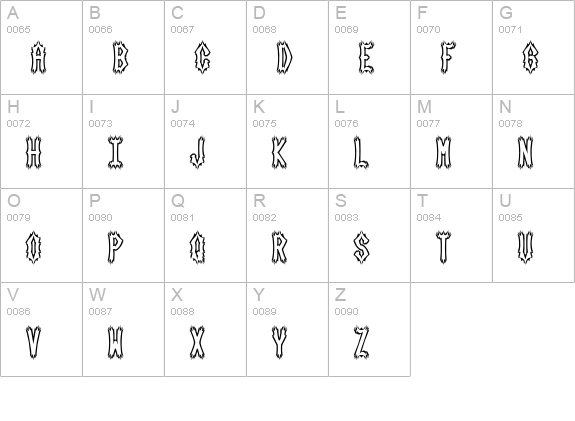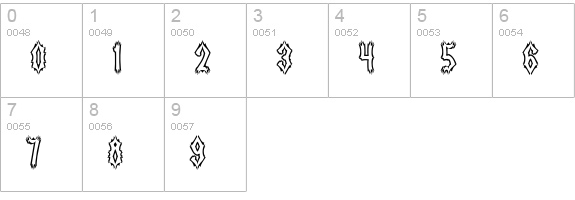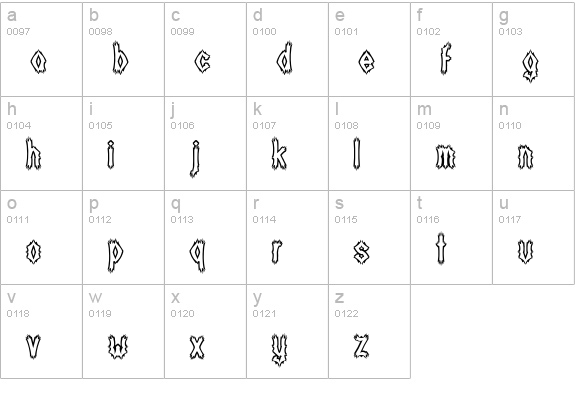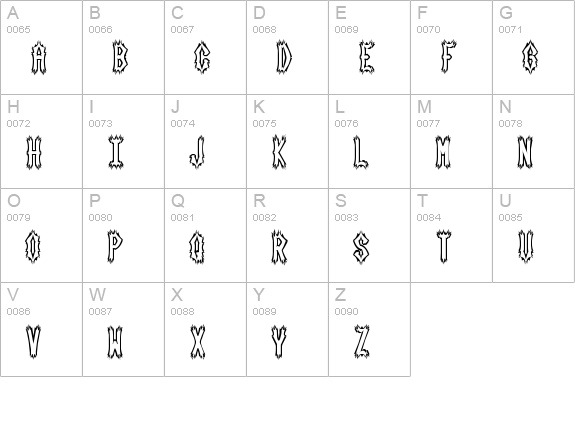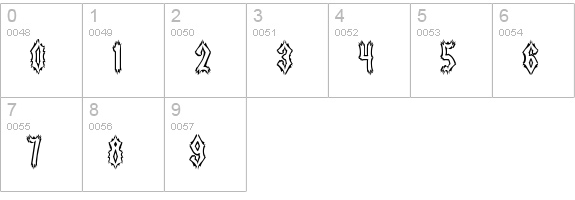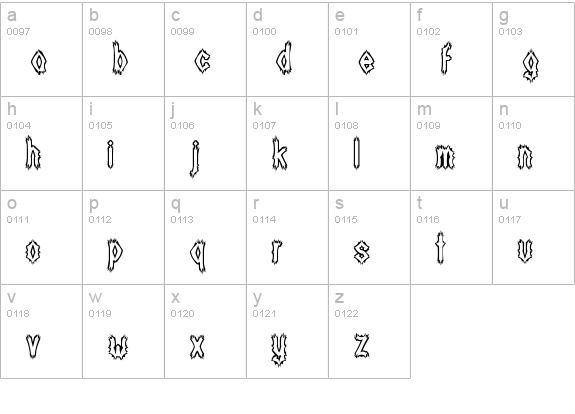
Dark Side BRK is a bold and edgy font that exudes a mysterious and powerful vibe. With its sharp angles and unique design, this font is perfect for adding a touch of drama to your projects. Whether you're working on a poster, logo, or website, Dark Side BRK will make a bold statement. Plus, the best part is that it is completely free to download at FontsMarket.com. So go ahead and add a touch of darkness to your designs with Dark Side BRK font.